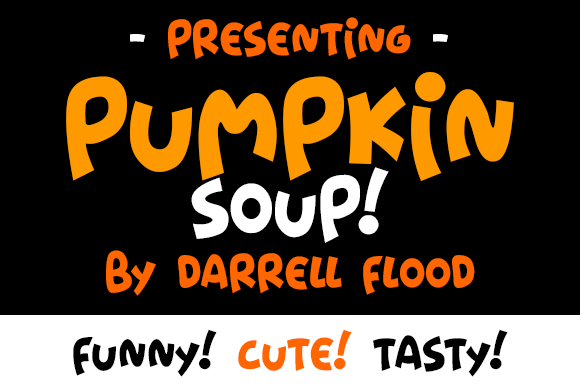
Pumpkin Soup Font
Get ready to be enchanted by the Pumpkin Soup Font, a whimsical and playful display font that will unleash your imagination and bring joy to your creative projects. Inspired by the vibrant world of comics and cartoons, Pumpkin Soup is more than just a font; it's an expression of pure fun and lightheartedness.
With its bouncy and energetic strokes, Pumpkin Soup adds a touch of magic to every design, whether it's a playful logo for a children's brand, eye-catching headlines for a comic book, or a captivating poster for a family-friendly event.
Dive into the delightful realm of Pumpkin Soup and discover a world where imagination takes center stage. Each character dances across your screen, bringing a smile to your face and a sense of wonder to your heart.
Imagine the joy on your child's face as they read a storybook adorned with Pumpkin Soup's charming letters. Let your creativity soar as you design invitations that pop with personality, greeting cards that warm the heart, and posters that transport you to a world of pure imagination.
With its playful spirit and undeniable charm, Pumpkin Soup Font is the perfect choice for anyone looking to add a touch of whimsy and delight to their designs. Let this font be your gateway to a world of endless creative possibilities.